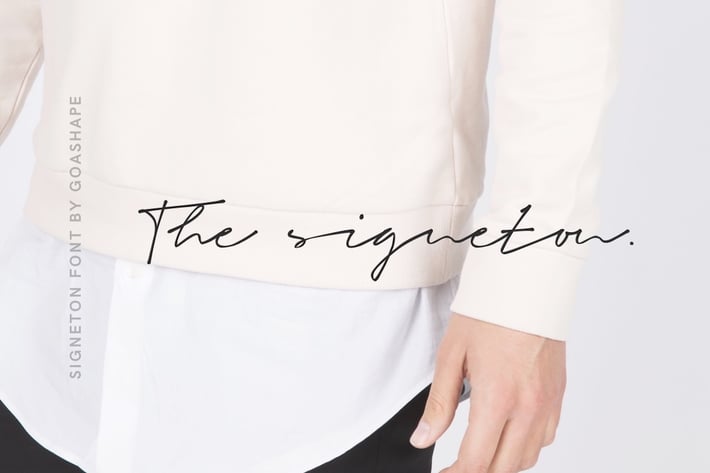
Signeton Font
GoaShape
Give your designs an authentic handcrafted feel. "Signeton" is perfectly suited to signature, stationery, logo, typography quotes, magazine or book cover, website header, clothing, branding, packaging design and more. A handwritten script font containing upper and lowercase characters, numerals and a large range of punctuation.